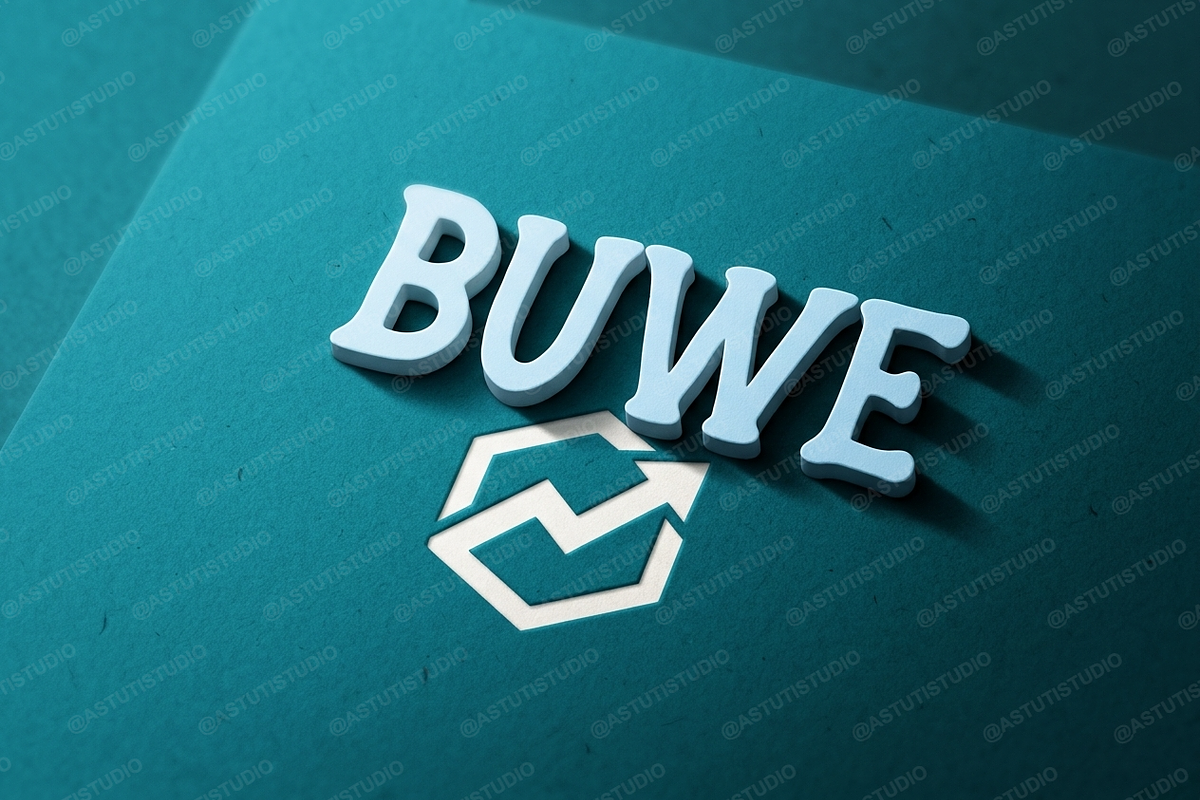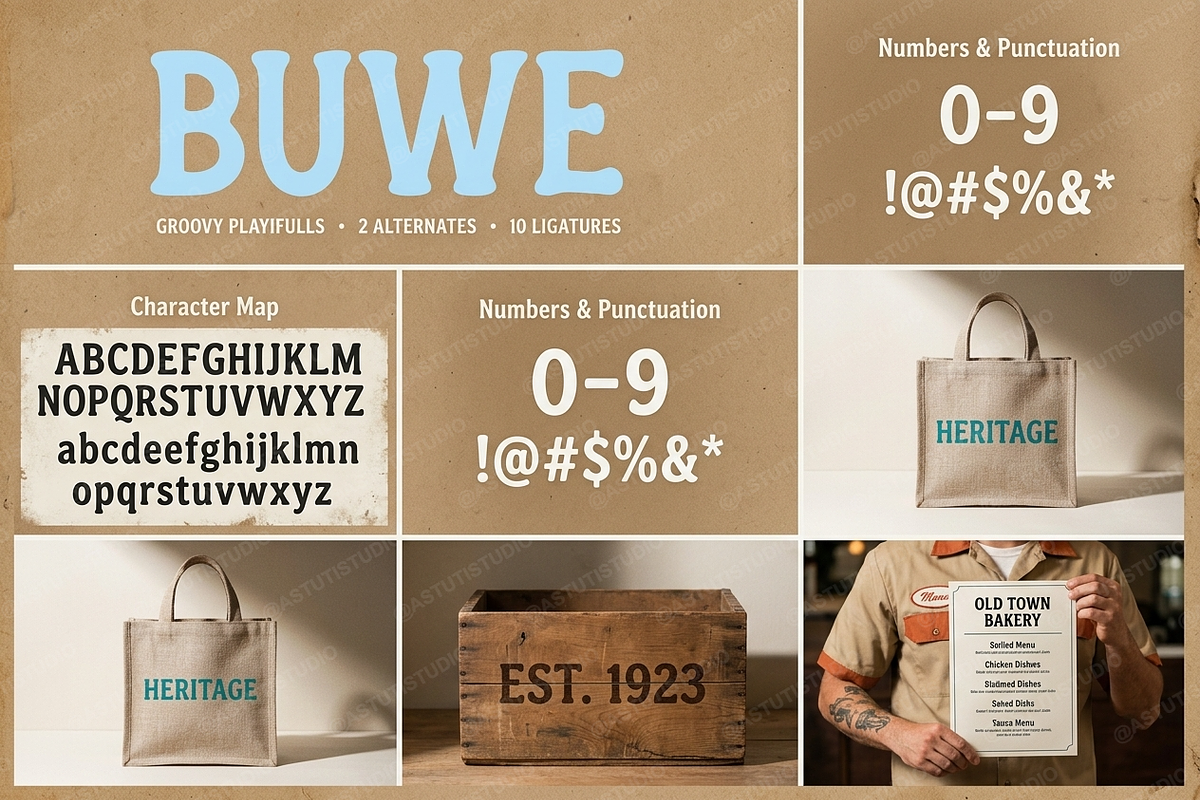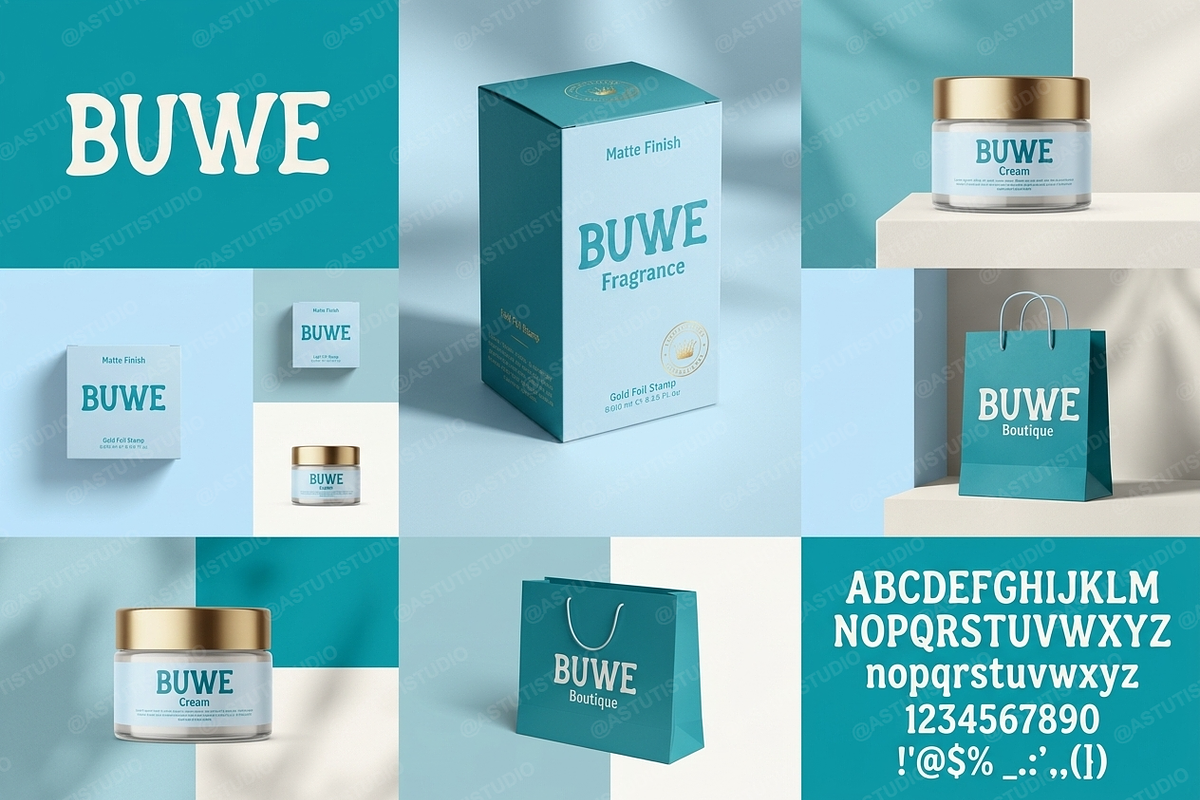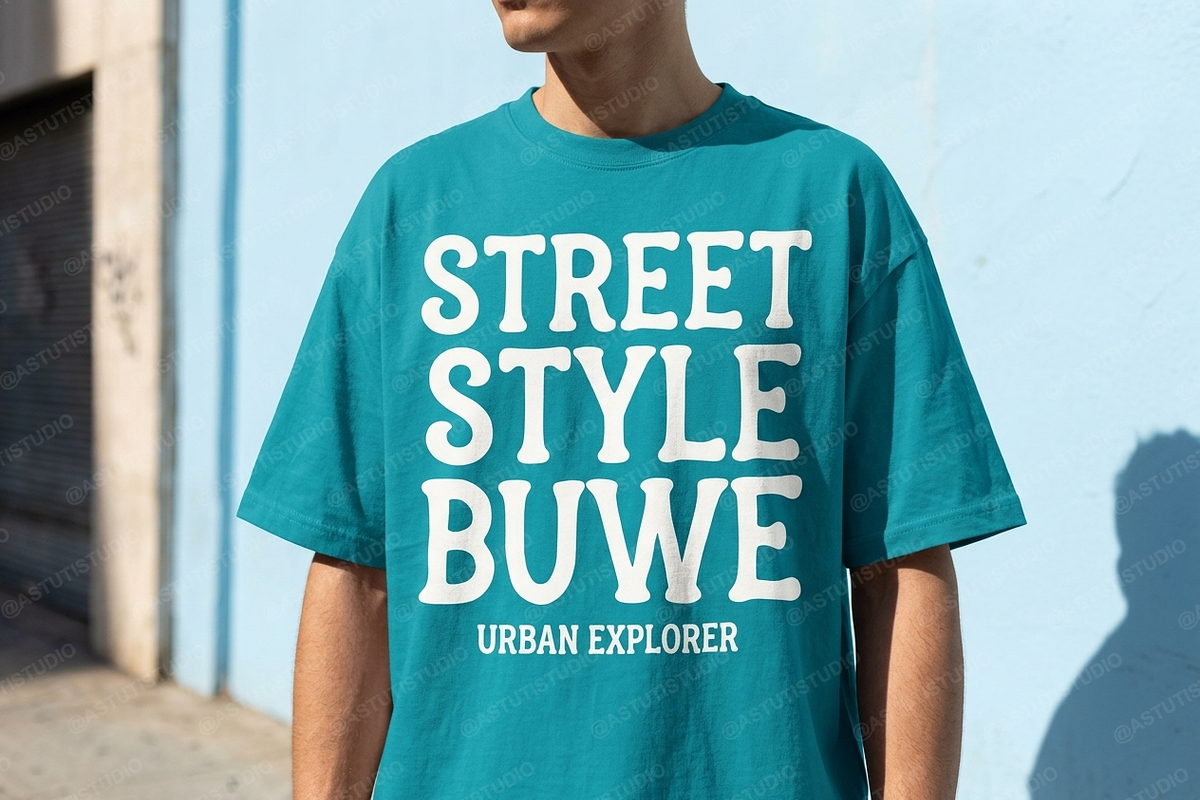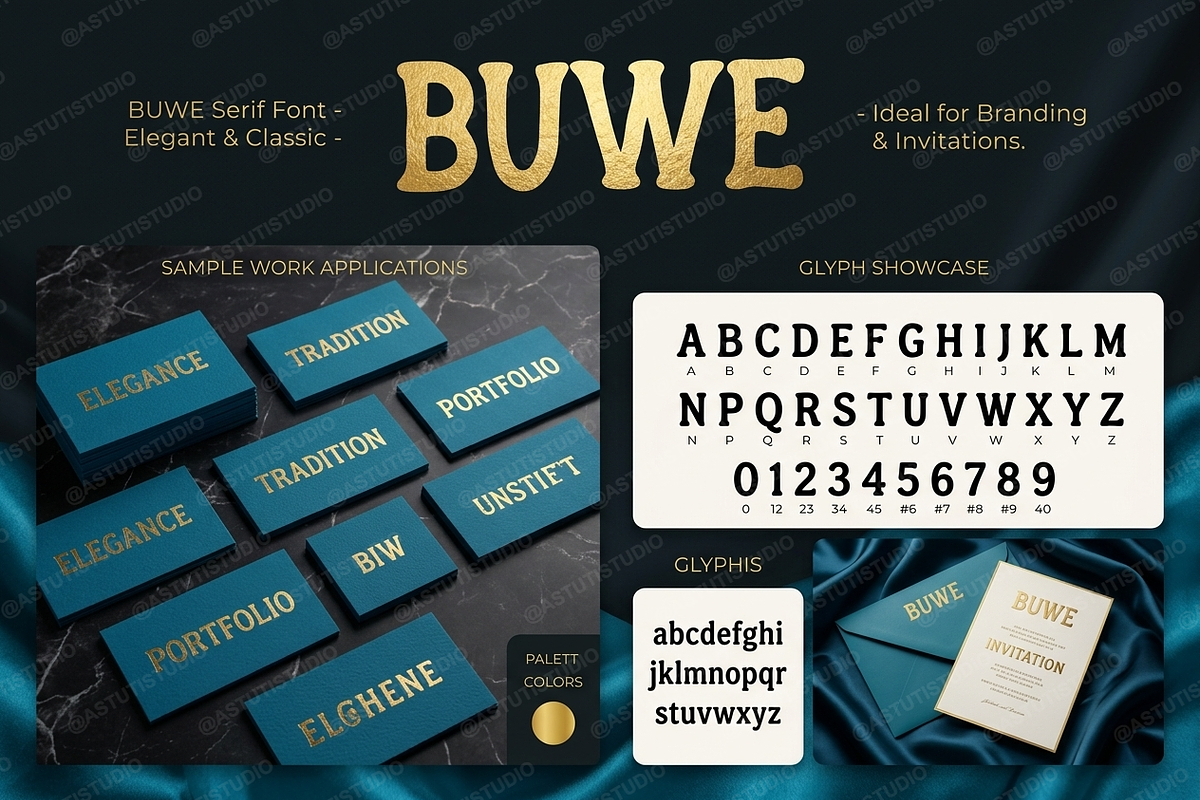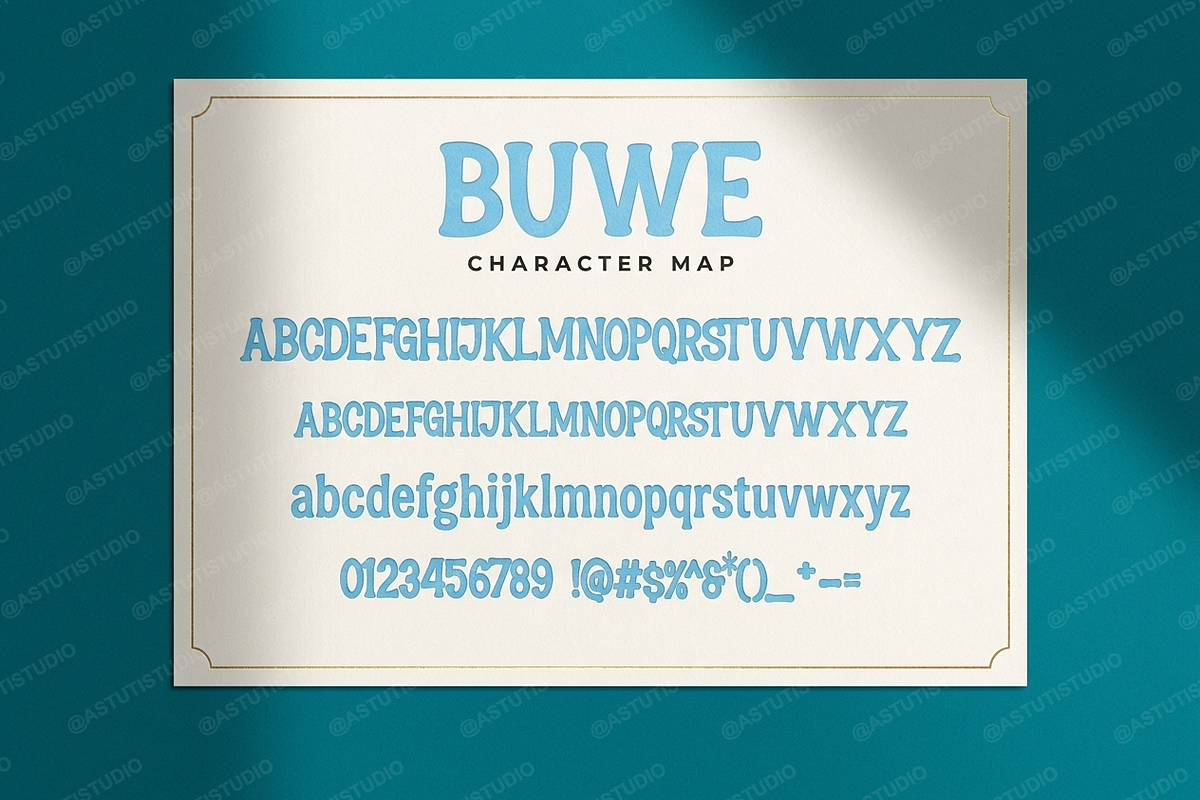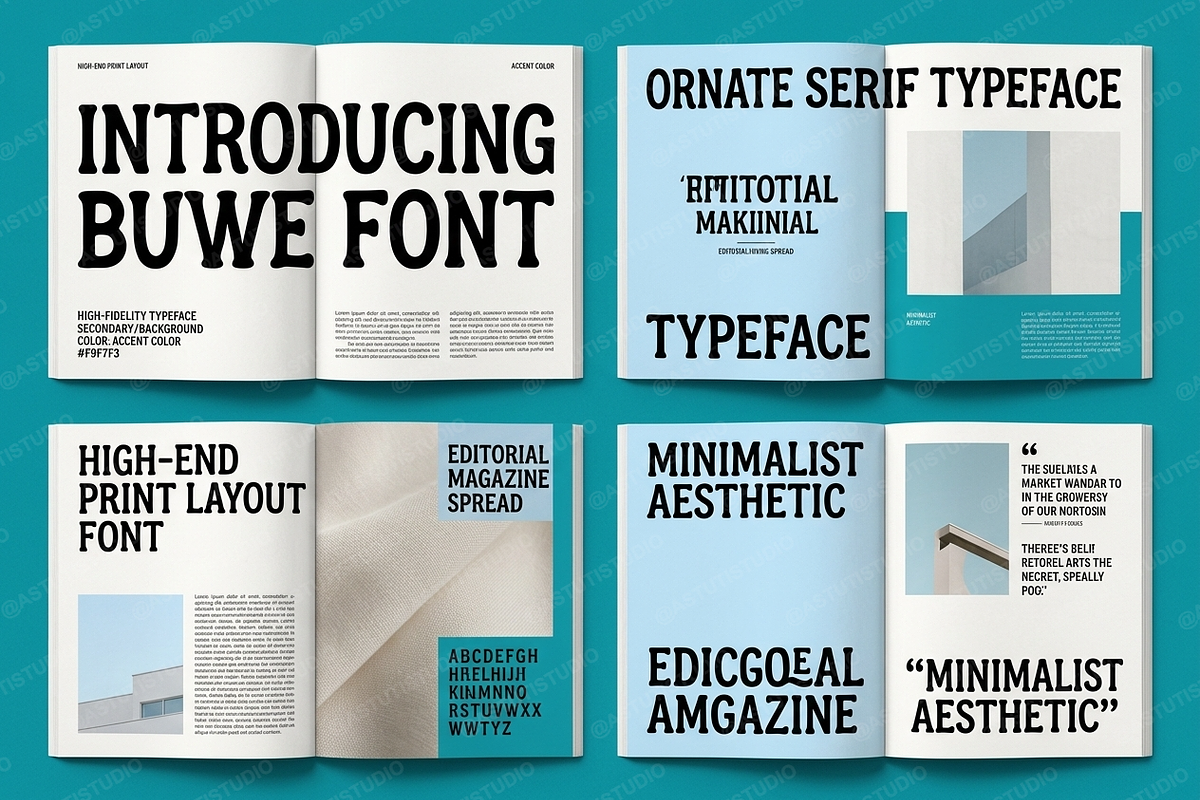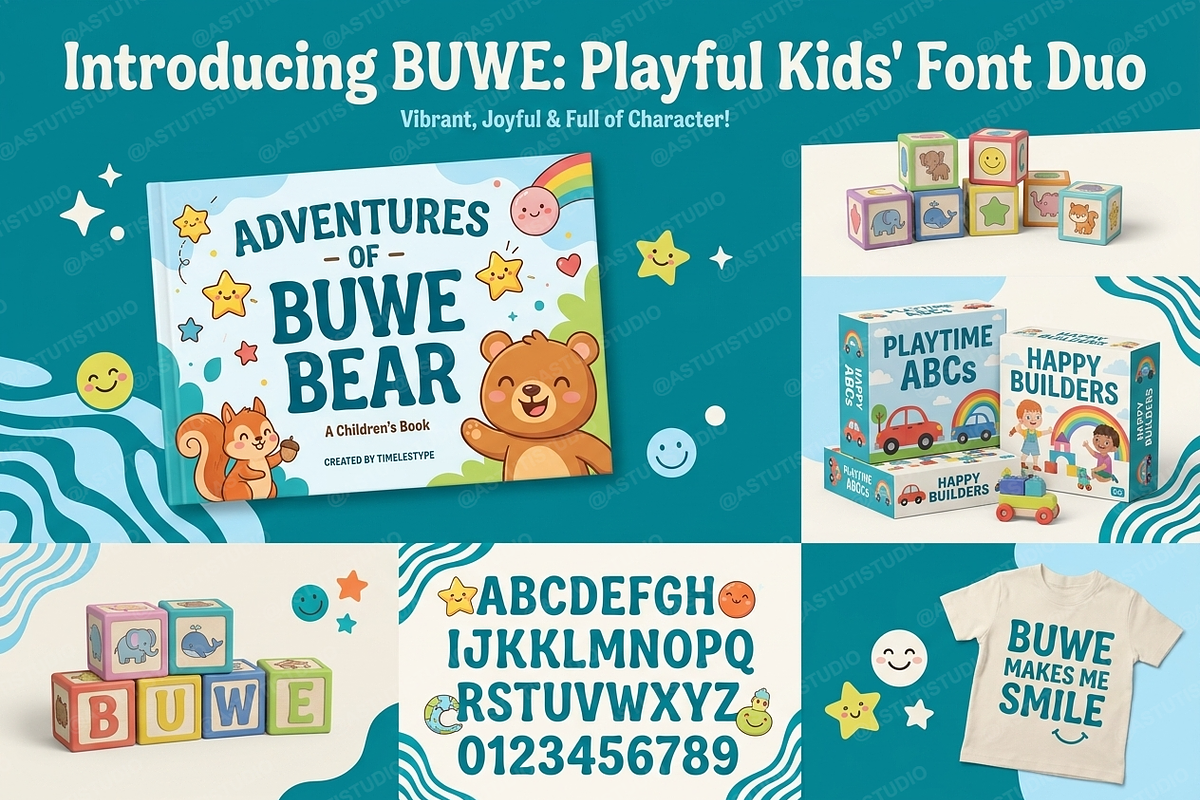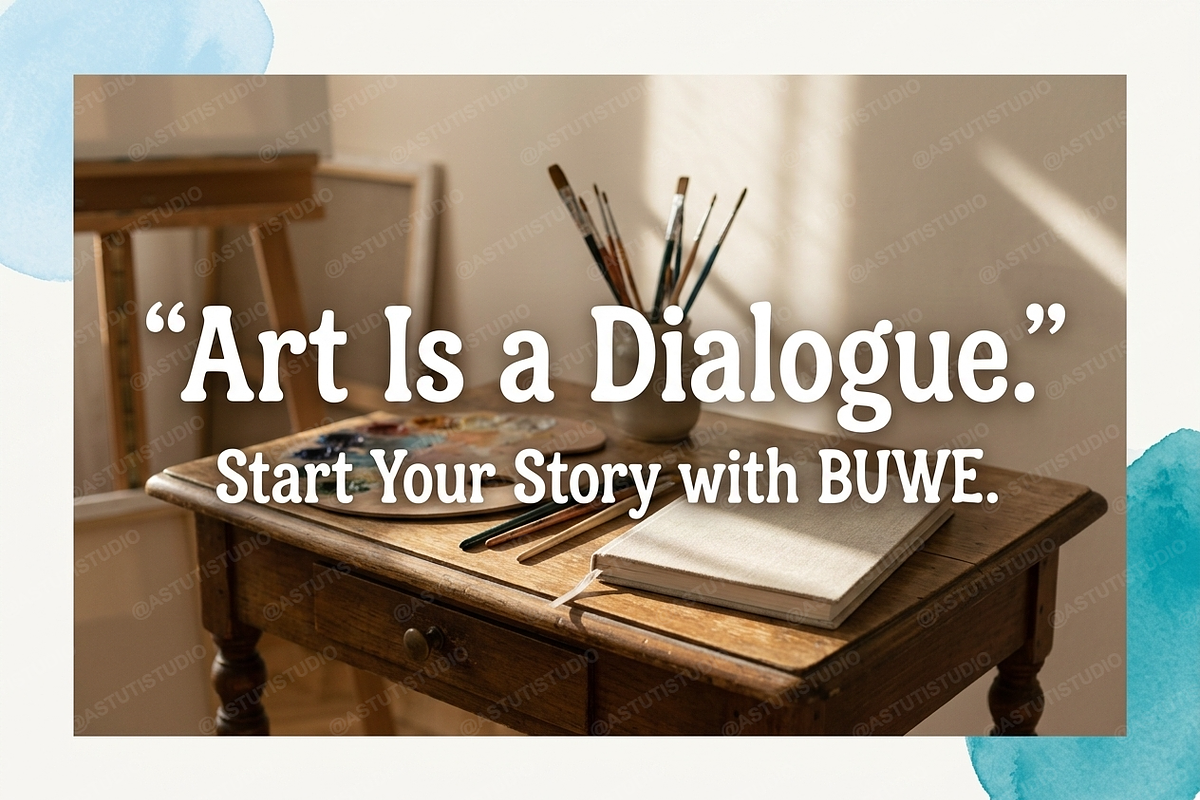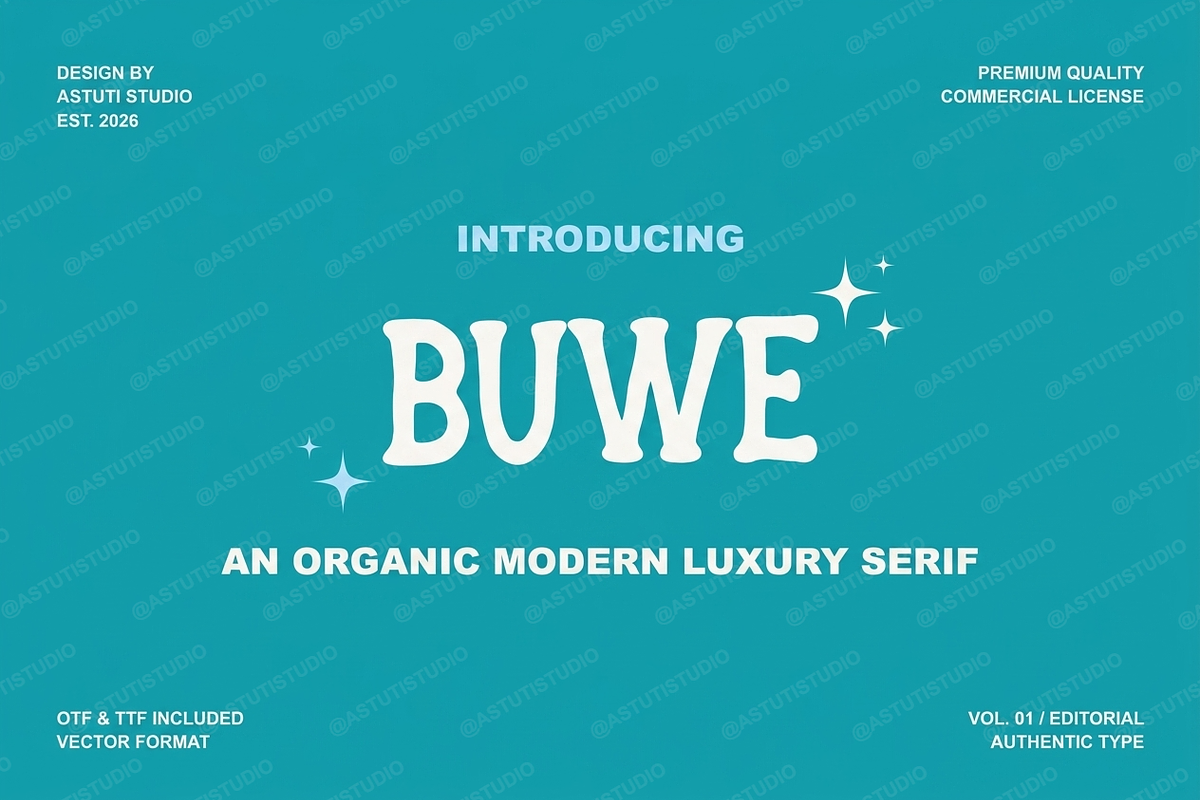
Buwe - Elegant Display Serif
Introducing Buwe, a meticulously crafted display serif typeface designed for discerning professionals. Buwe embodies timeless elegance fused with contemporary clarity, making it the essential cornerstone for high-end visual communication. Its luxurious proportions and sharp, defined details ensure immediate sophistication across any medium.
=== Key Features & Applications ===
• Luxury Branding: Ideal for logotypes, exclusive packaging, and corporate identities demanding an opulent and authoritative aesthetic. • Editorial Design: Provides exceptional readability and hierarchy for professional magazines, art books, and high-fashion spreads. • Versatile Weights: Includes Thin, Regular, and Bold weights to effortlessly manage complex typographic layouts and visual hierarchies. • Extensive Ligatures & Alternates: Features stylistic alternates and ligatures that enhance the flow and unique character of your titles and headings. • Social Media Presence: Perfect for creating impactful quote graphics and premium campaign headlines that ensure superior engagement.